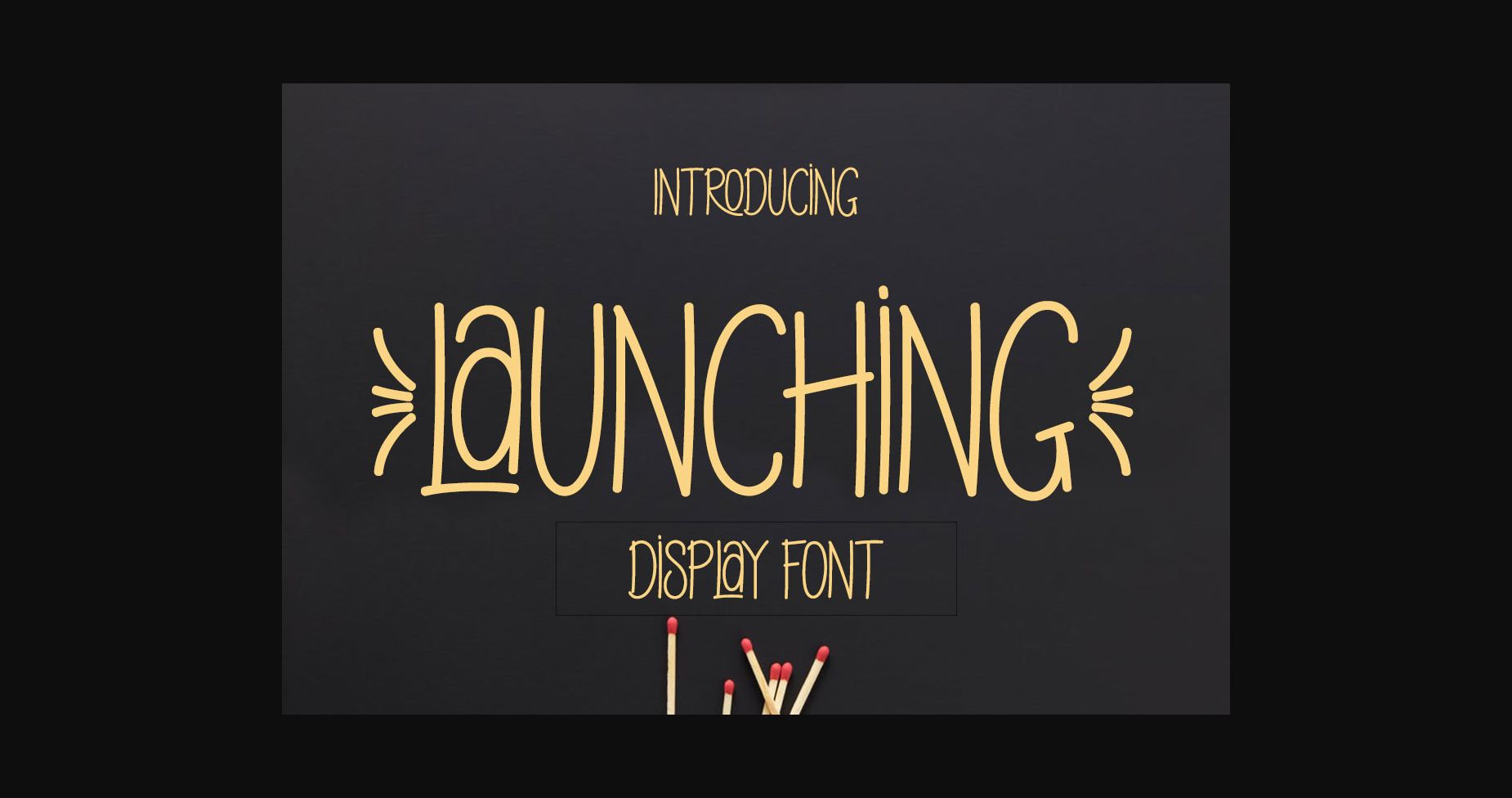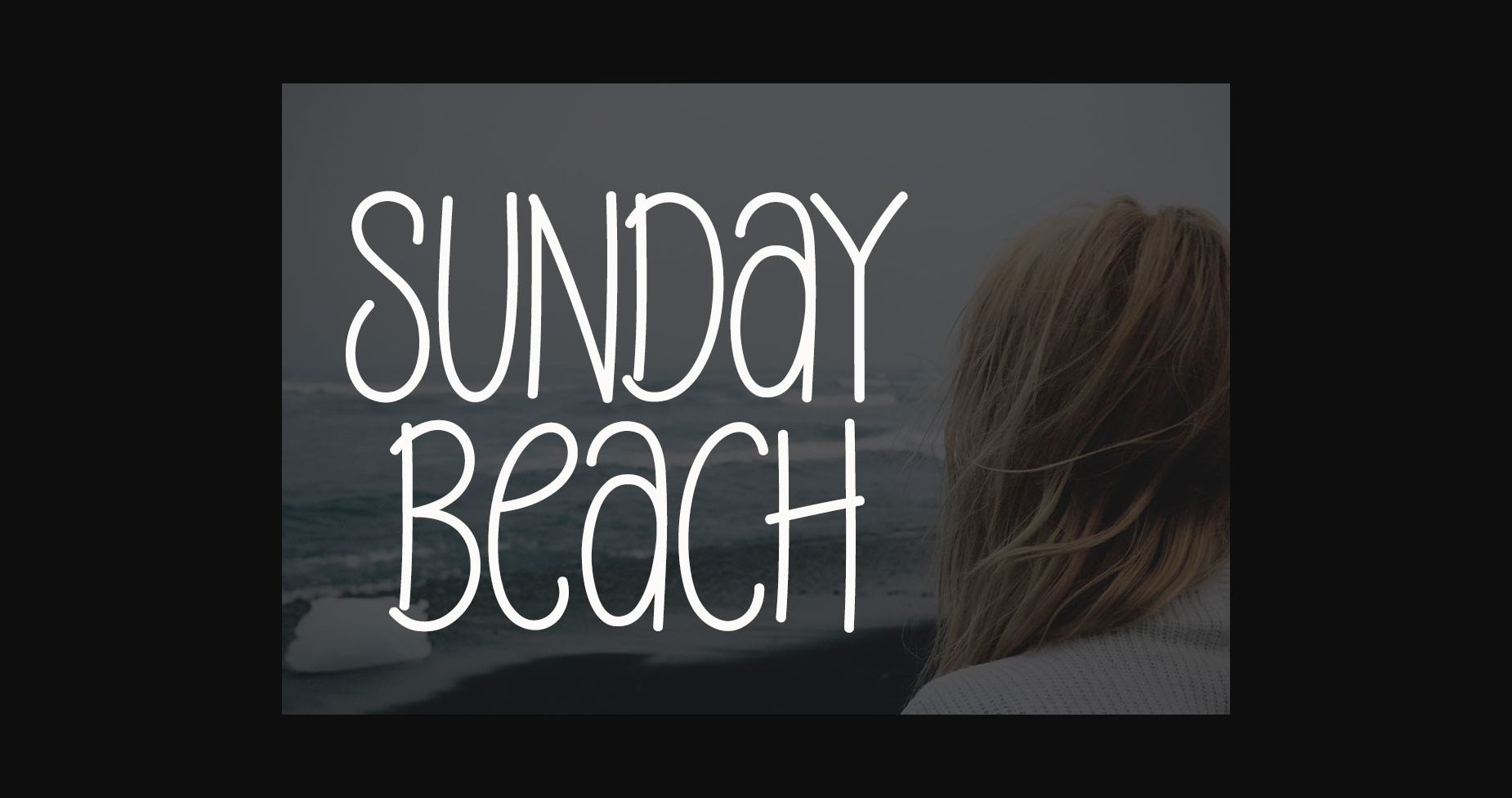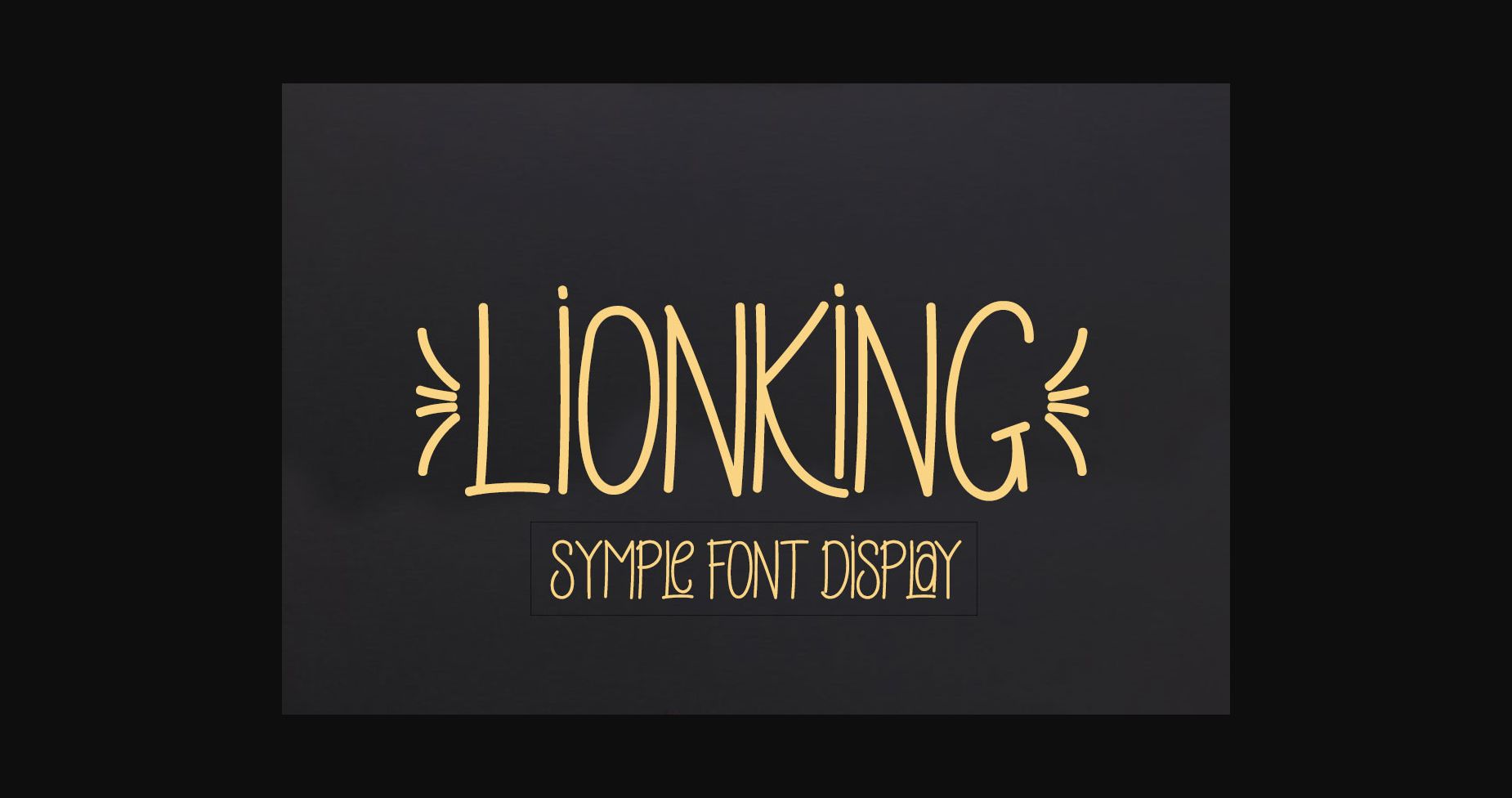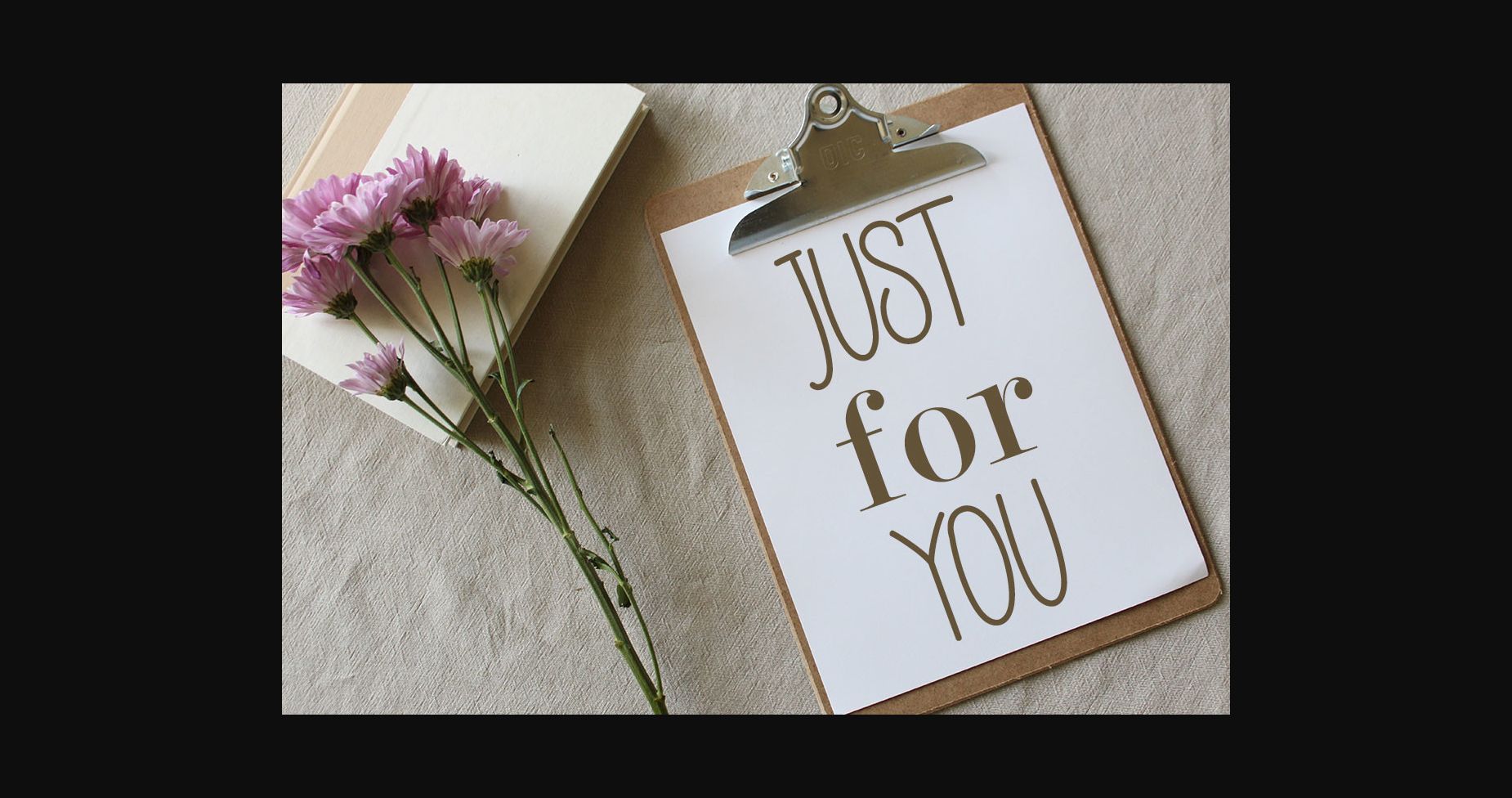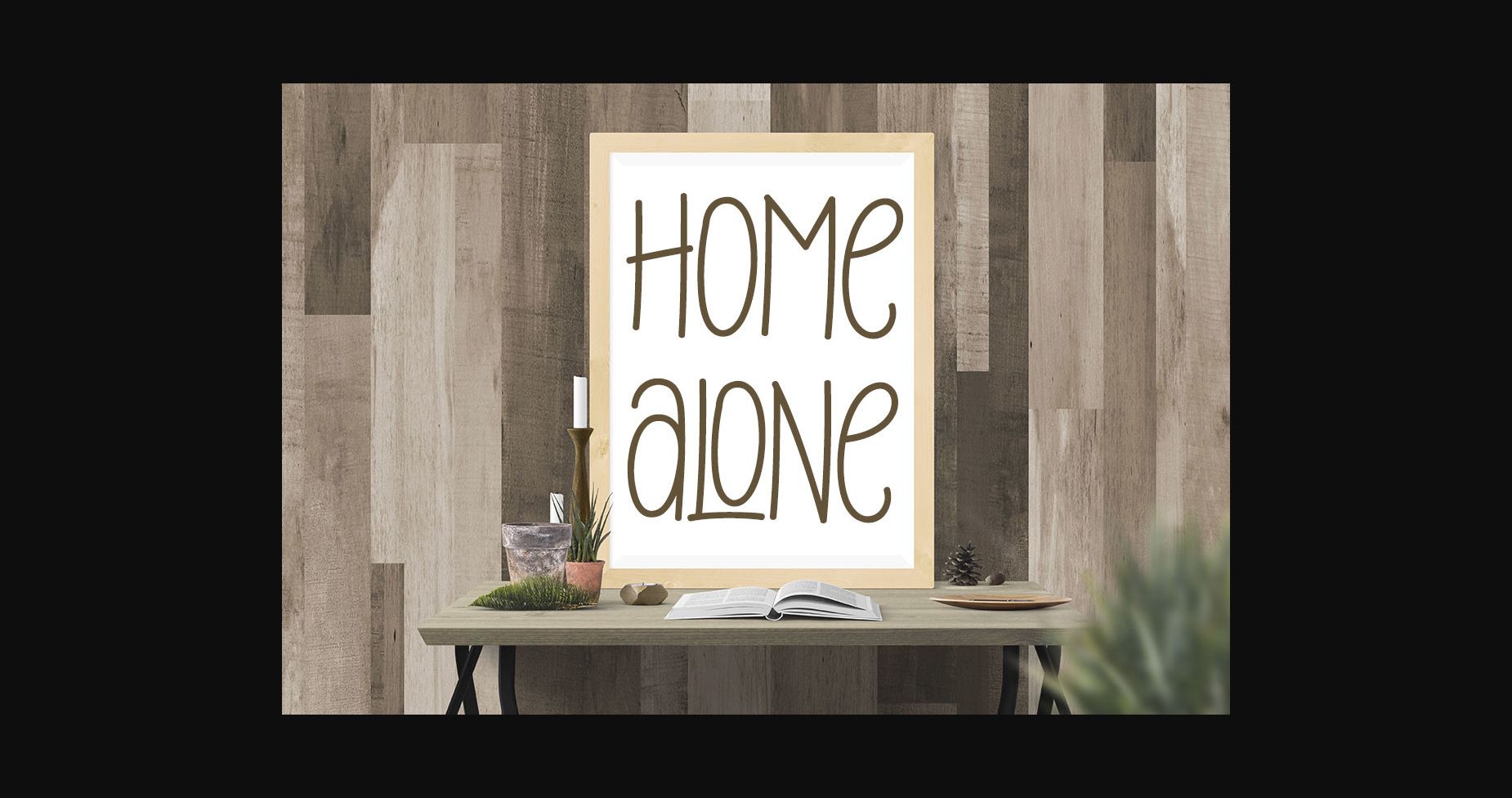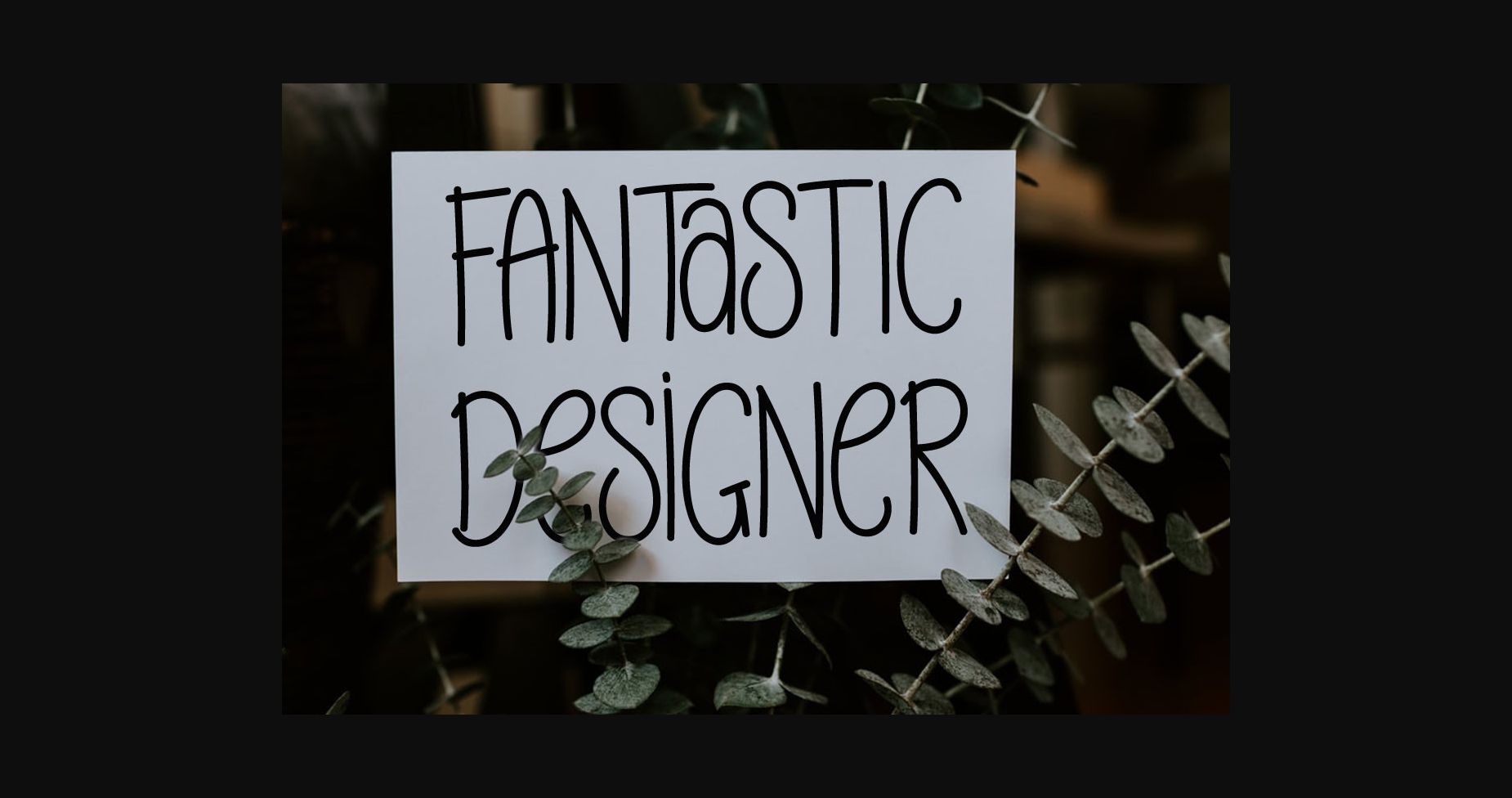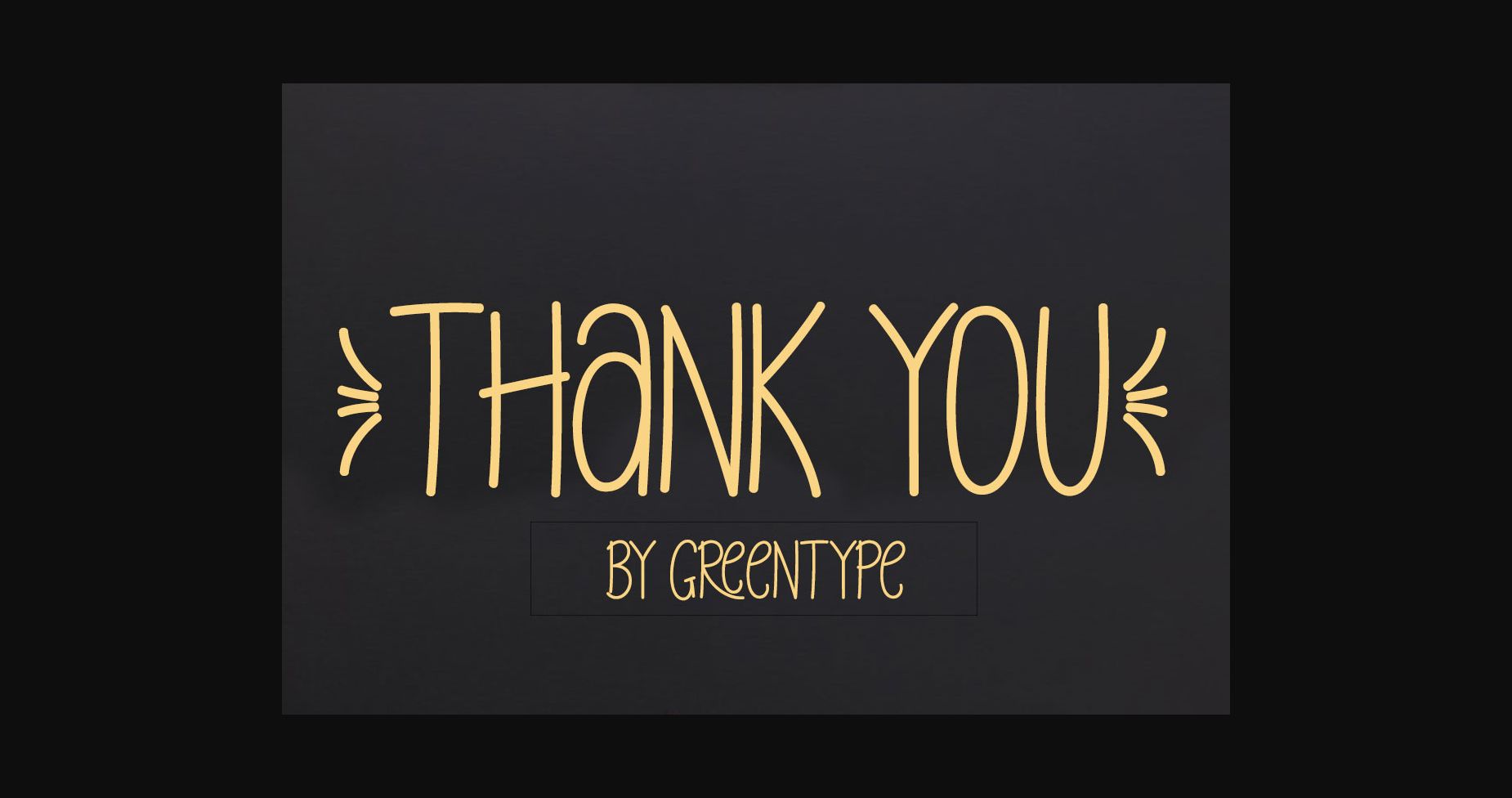
HomeSans Serif FontsLaunching Font Sans Serif Fonts Launching Font FacebookXPinterestWhatsApp 1 of 9 ... Launching Font Poster 2... Launching Font Poster 3... Launching Font Poster 4... Launching Font Poster 5... Launching Font Poster 6... Launching Font Poster 7... Launching Font Poster 8... Launching Font Poster 9... About Launching Font Launching is a stylish sans serif font that features a varying baseline, smooth lines, and a classic and elegant touch! DOWNLOAD NOW People also explored Migrat Font Dream Valentine Font Homeschool Hollow Font Halistera Font Round Grunge Font Aeana Callroom Font Beautiful Marry Font Le Film 470 0 TagsLaunching Font Previous articleSync FontNext articleNamata Font LEAVE A REPLY Cancel reply Comment: Please enter your comment! Name:* Please enter your name here Email:* You have entered an incorrect email address! Please enter your email address here Website: Save my name, email, and website in this browser for the next time I comment. Personal Use Free Diland Personal Use Free Read more about this font DangeRNighT Font Personal Use Free Read more about this font Trunk Shaped Personal Use Free Read more about this font Geracella Personal Use Free Read more about this font BLOG The 10 Best Handwriting Fonts to Add Personality to Your Designs 10 of the Best Handwriting Fonts for Adding Personality to Your Designs There will undoubtedly be no other better choice than handwriting fonts to give... How to Cut Any Font on Cricut: Convert a Font to SVG (Free) Exploring Font Trends Where to Buy American Fonts Online in 2024